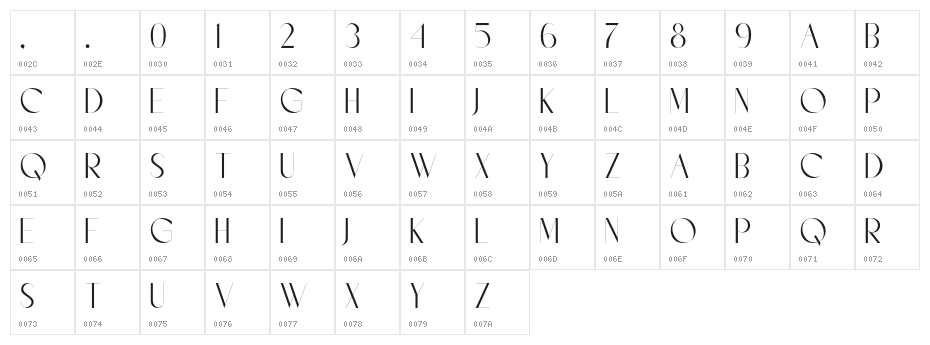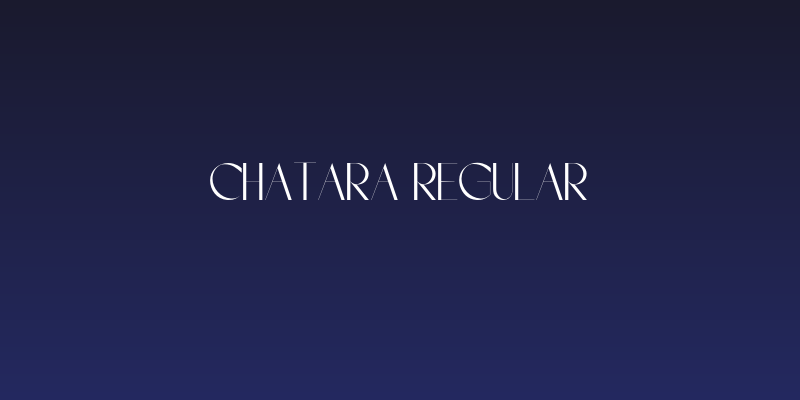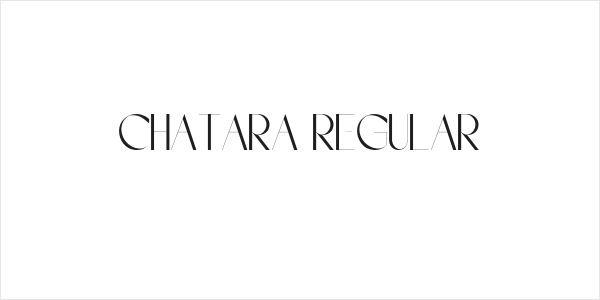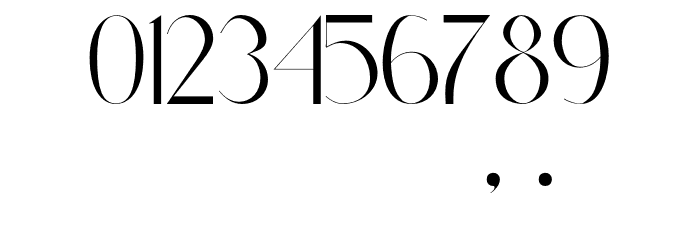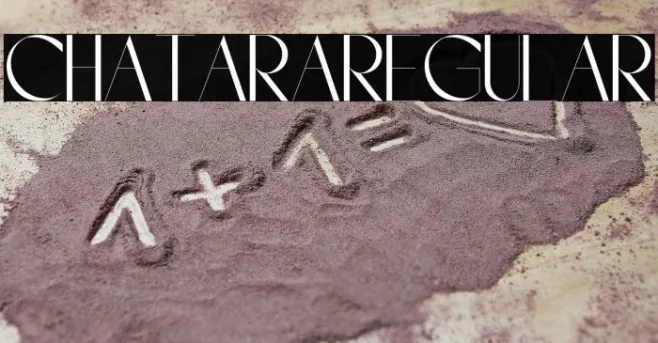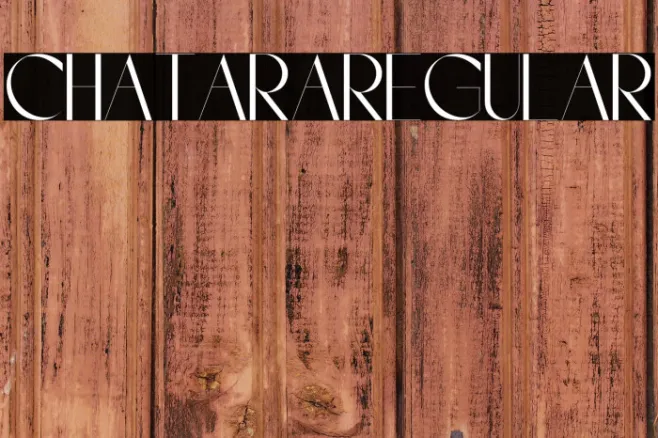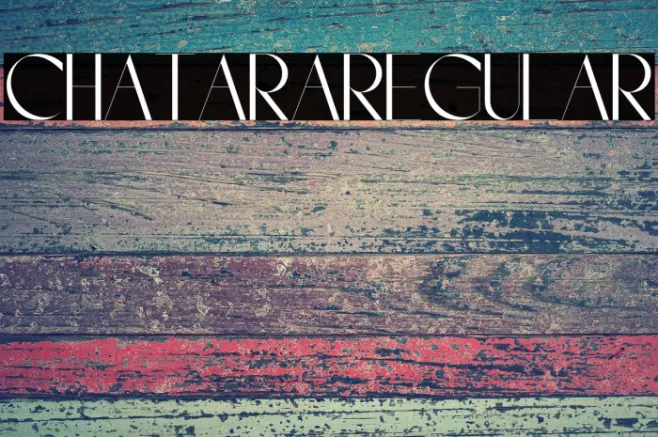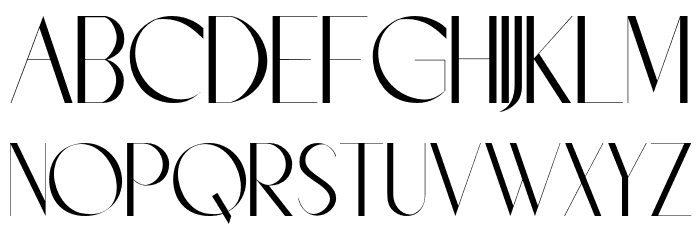
Chatara-Regular Font
Chatara-Regular Description
This font features a modern and elegant design with a high contrast between thick and thin strokes. The characters are sleek and elongated, giving a sophisticated and stylish appearance. The uppercase letters are particularly striking, with sharp angles and smooth curves that create a sense of movement and grace. The numerals are equally refined, maintaining the same high contrast and elegant style. This font is perfect for projects that require a touch of luxury and modernity.
| Proposed Projects | Ideal for luxury branding, fashion magazines, elegant invitations, and high-end product packaging. |